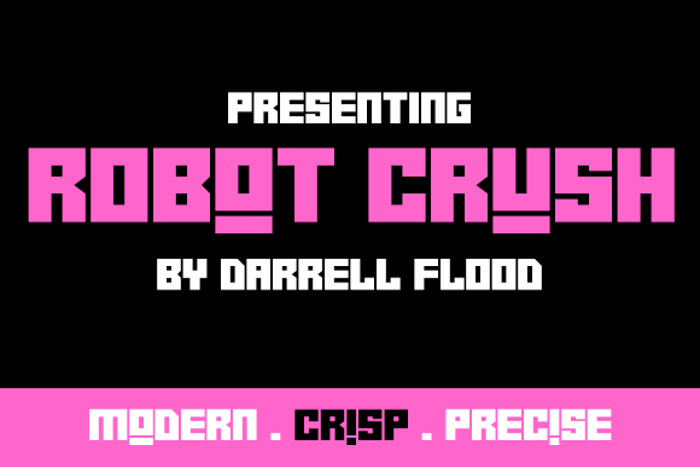
Robot Crush Font
* Full Euro character support added (all common accents and composites)
* Diagonal cuts in main characters now standardized (R,B,K,X)
* Line widths now standardized for improved readability (more space between lines)
* Lead-ins and lead-outs now standardized (50,50 rather than 0,100)
* Various extra characters added
* Various minor improvements